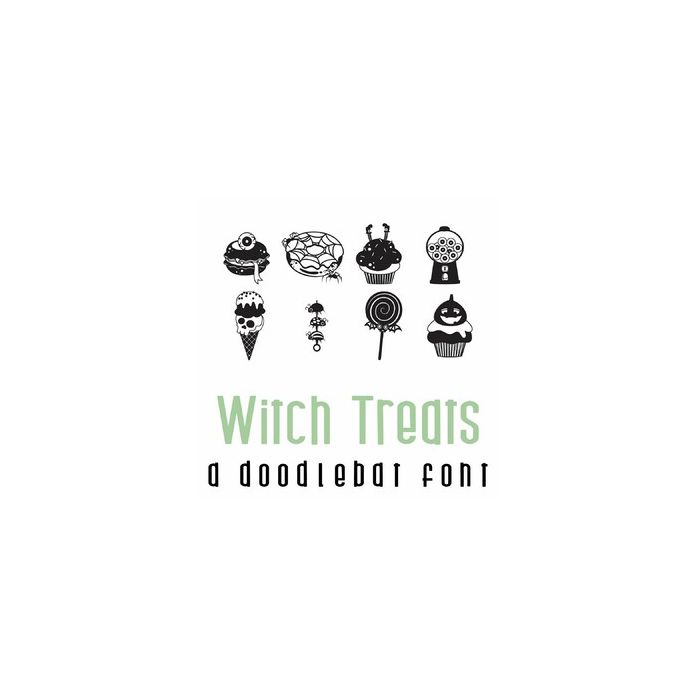
Witch Treats Doodlebat Font
This fun doodlebat font features 26 spooky treats. Perfect for Halloween, cards, gifts, decor, crafts, scrap book pages, planner stickers and more!